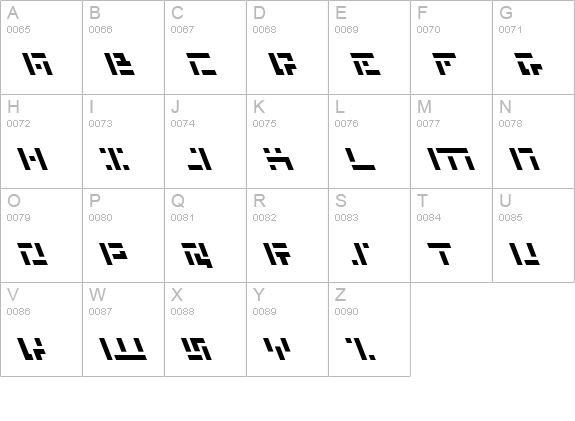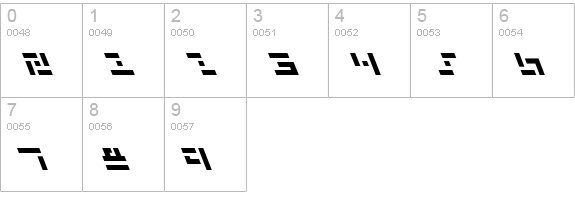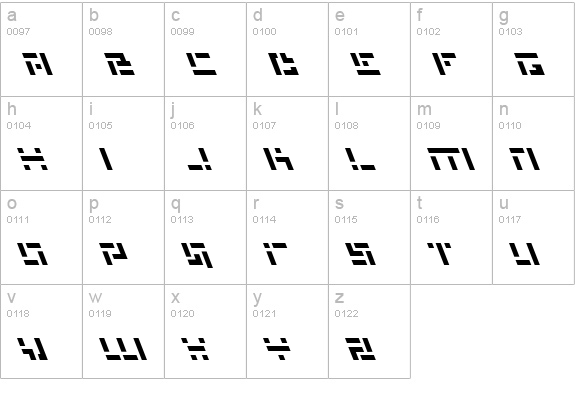
Missile Man Leftalic Font Details
Missile Man Leftalic font is a dynamic and eye-catching typeface that exudes a sense of energy and motion. With its slanted and italicized design, this font is perfect for adding a touch of modernity and style to your projects. The sleek and futuristic look of Missile Man Leftalic is ideal for headlines, posters, and branding materials that need to make a bold statement. What sets Missile Man Leftalic font apart is not just its striking appearance, but also the fact that it is available for free download at FontsMarket.com. This means that you can easily access and use this unique font in your designs without any cost. Whether you're a designer looking to experiment with new typefaces or a business owner in need of a fresh look for your marketing materials, Missile Man Leftalic font is a versatile and accessible option that is sure to make a lasting impression.